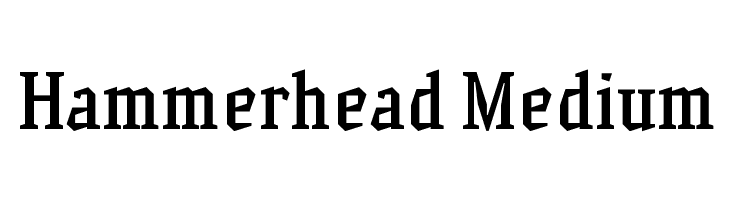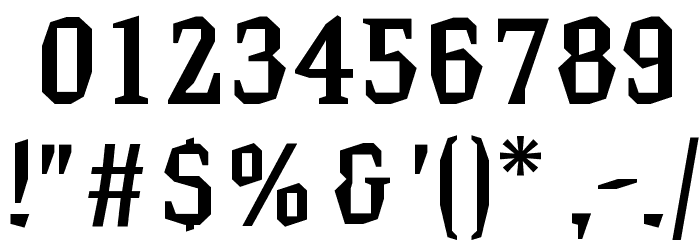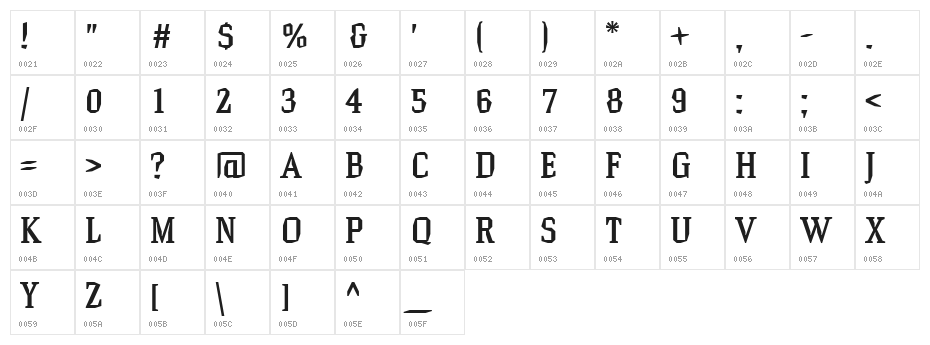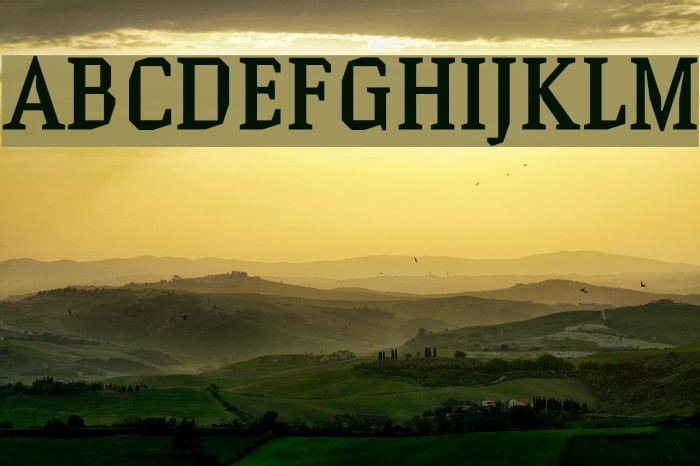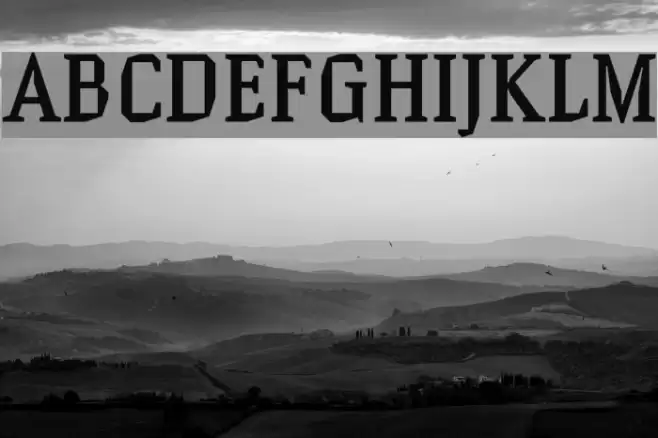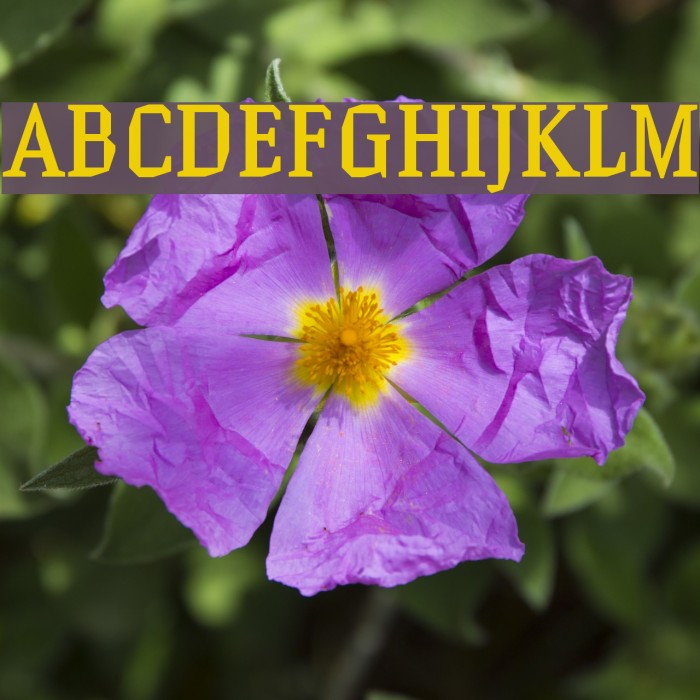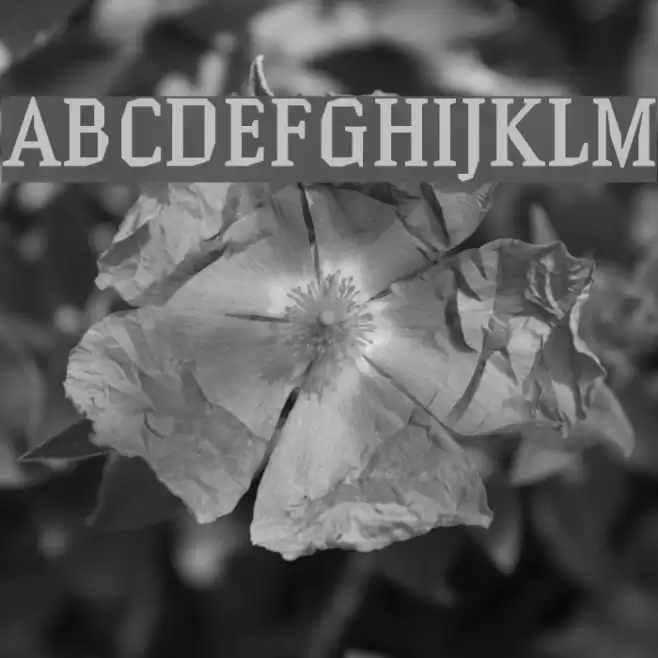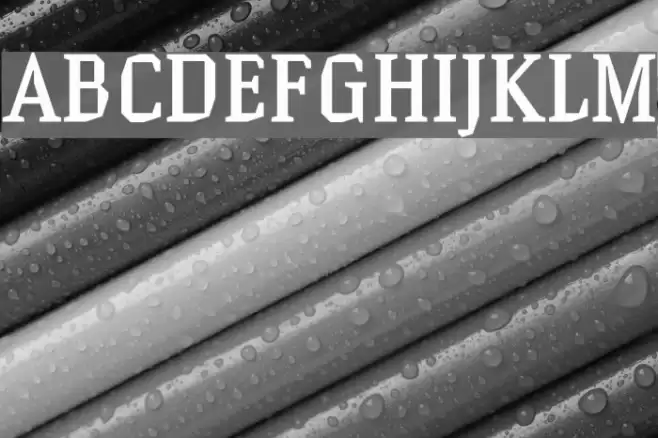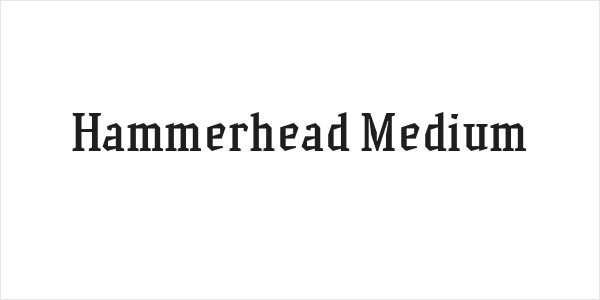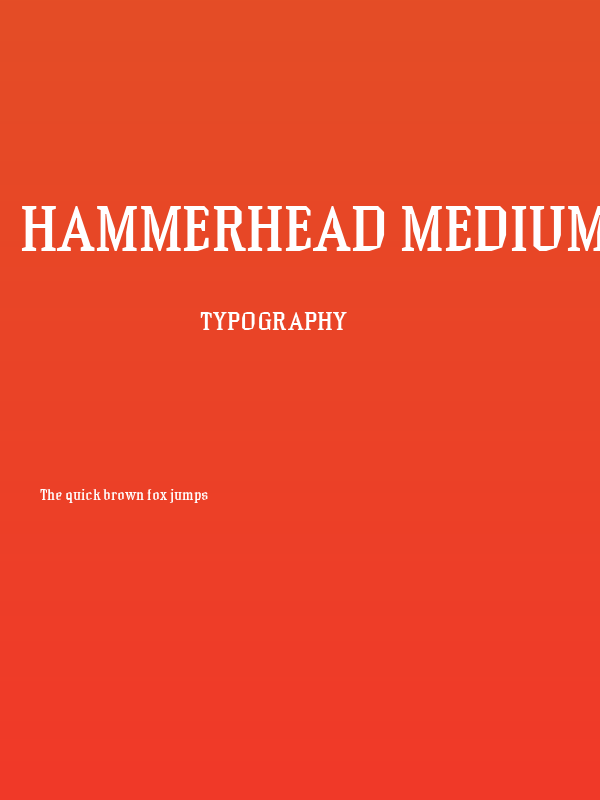
Hammerhead Medium Font
Hammerhead Medium Description
This font features a bold and angular design, characterized by its strong geometric shapes and sharp edges. The uppercase letters are particularly striking, with a distinct industrial feel that is both modern and assertive. The lowercase letters maintain this boldness, offering a cohesive look across all text. Numbers and special characters follow the same design principles, ensuring consistency throughout. The font's unique style makes it stand out, with a slightly condensed appearance that adds to its commanding presence.
| Proposed Projects | Ideal for branding, posters, and headlines that require a strong, impactful presence. |